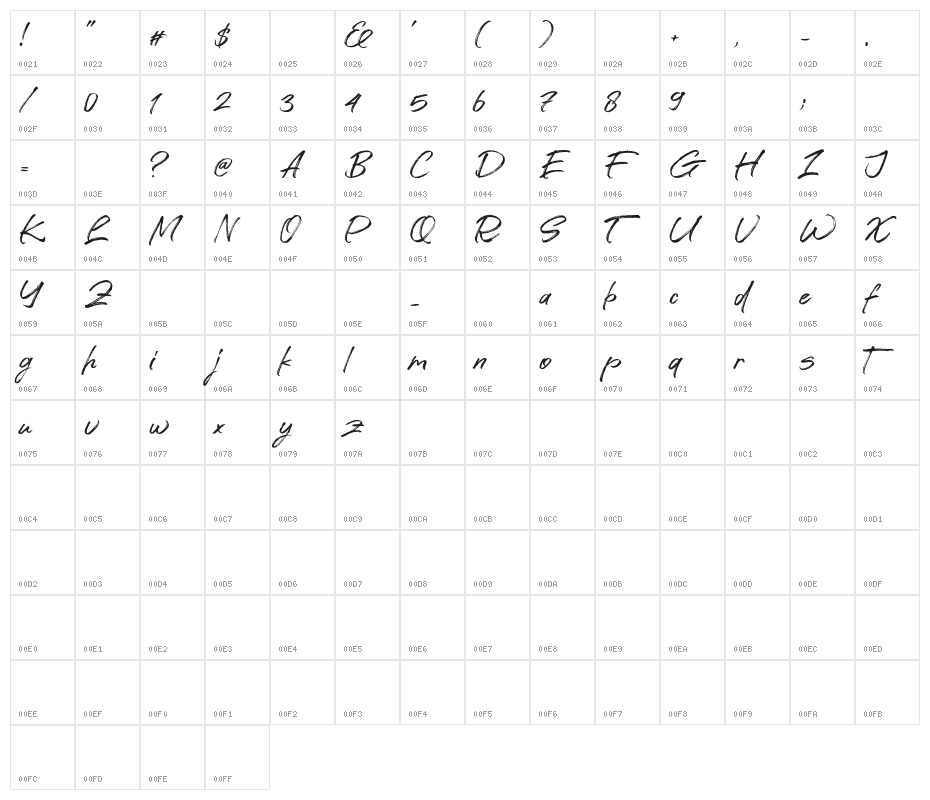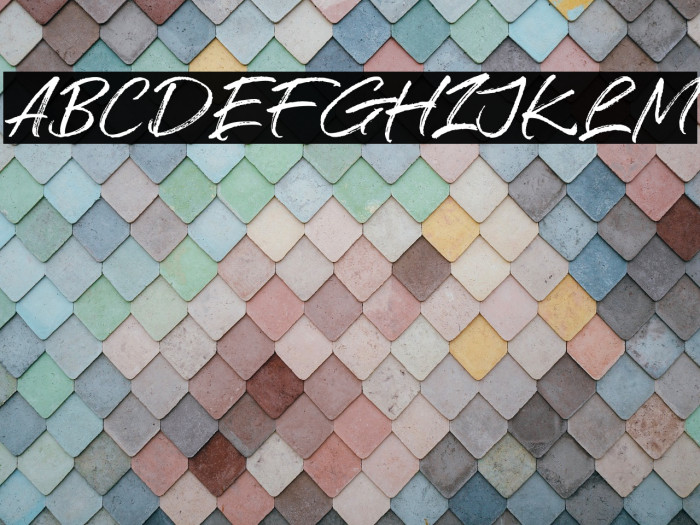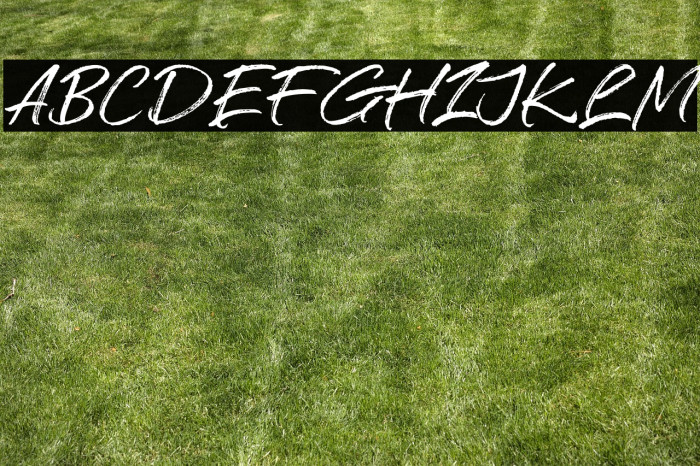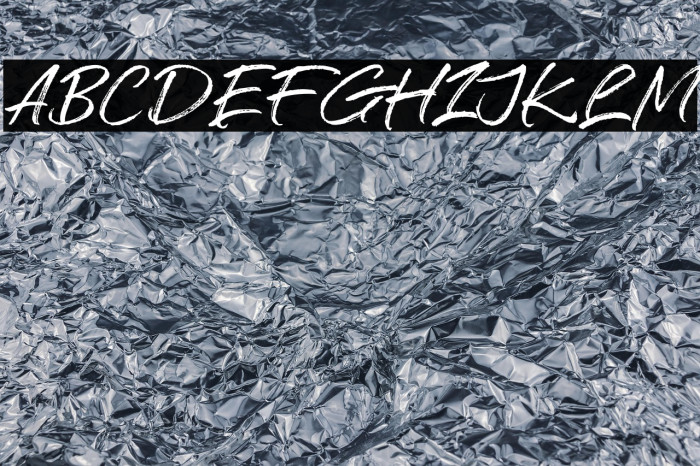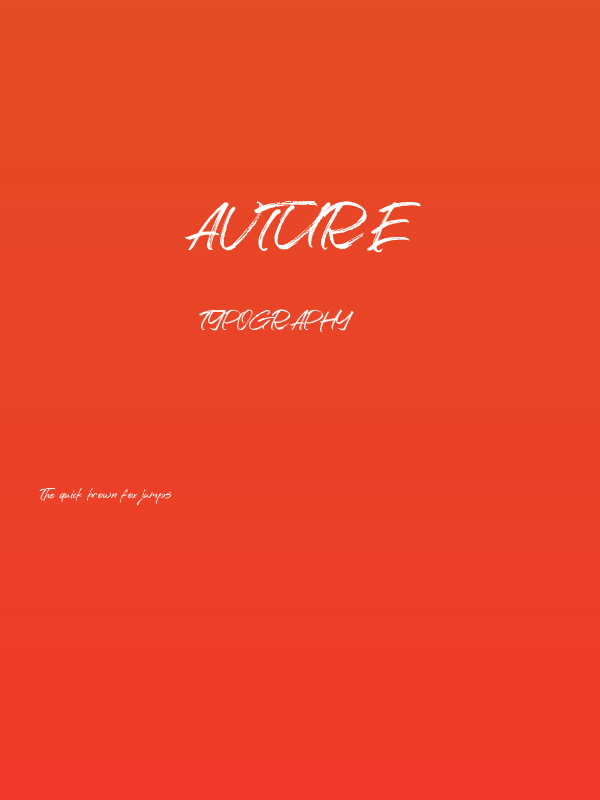
Avture Font
Avture Description
This font features a dynamic and expressive handwritten style, characterized by its fluid and cursive letterforms. The strokes are varied in thickness, giving it a lively and energetic appearance. The uppercase letters maintain a consistent height, while the lowercase letters exhibit a natural flow with occasional loops and flourishes. The numerals are bold and maintain the same energetic style, ensuring readability. Special characters are integrated seamlessly, maintaining the overall aesthetic. This font exudes a sense of creativity and personal touch, making it ideal for projects that require a humanistic and artistic feel.
| Use Case | Logos, Headlines, Artistic projects |
| Proposed Projects | Ideal for creative projects such as invitations, greeting cards, personal branding, and artistic posters. |